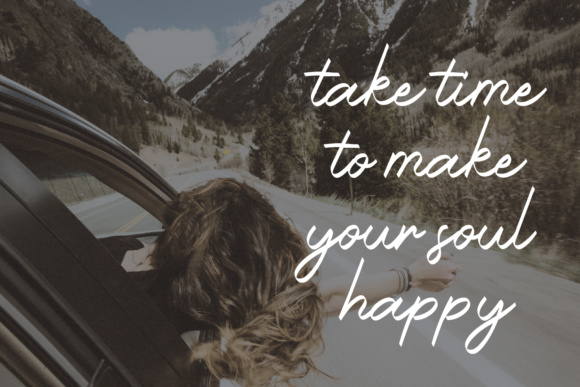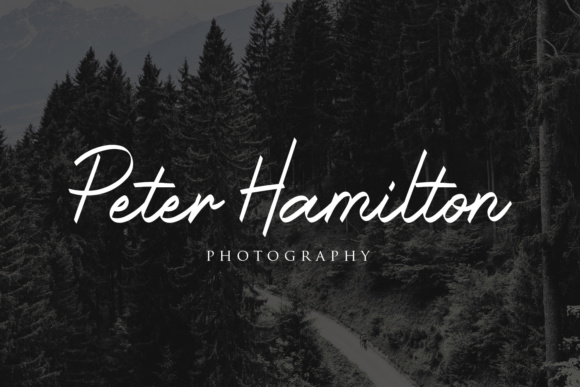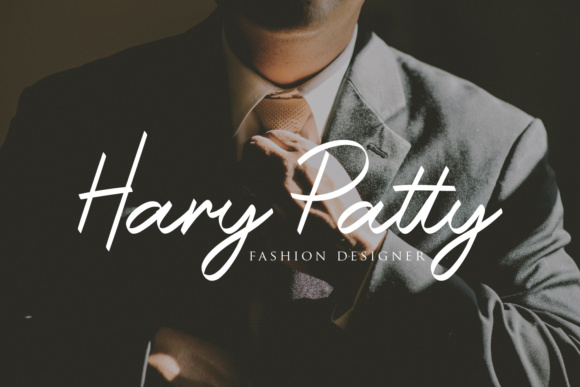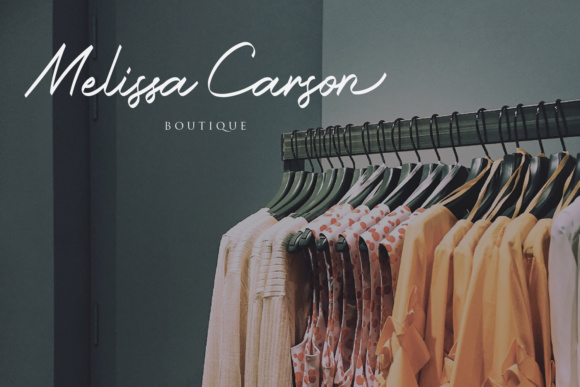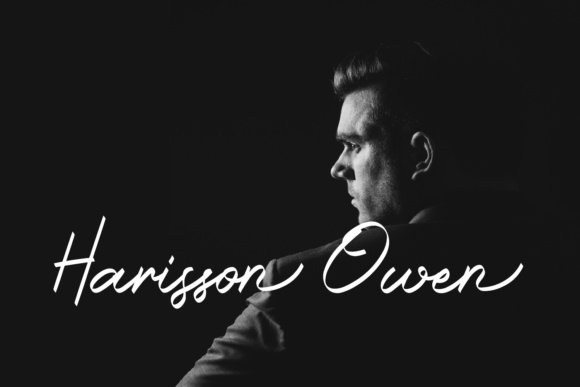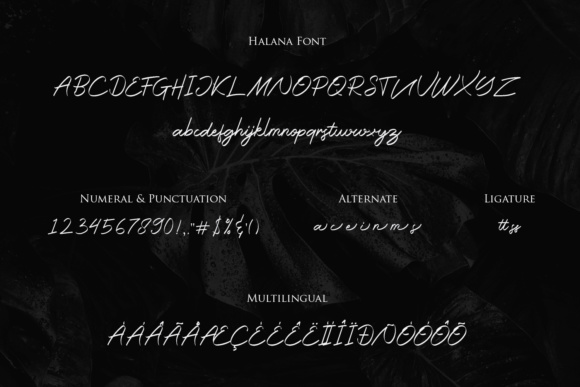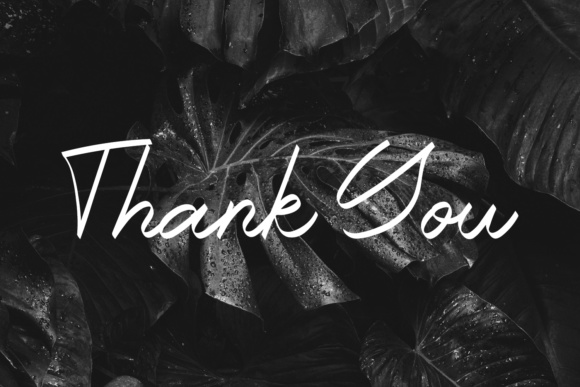
Halana Font
About Halana Font
The Halana is a beautiful, striking, handwritten font. It has a good readability which makes it perfect for posters, logos, invitations or any other design that needs a handwritten look.